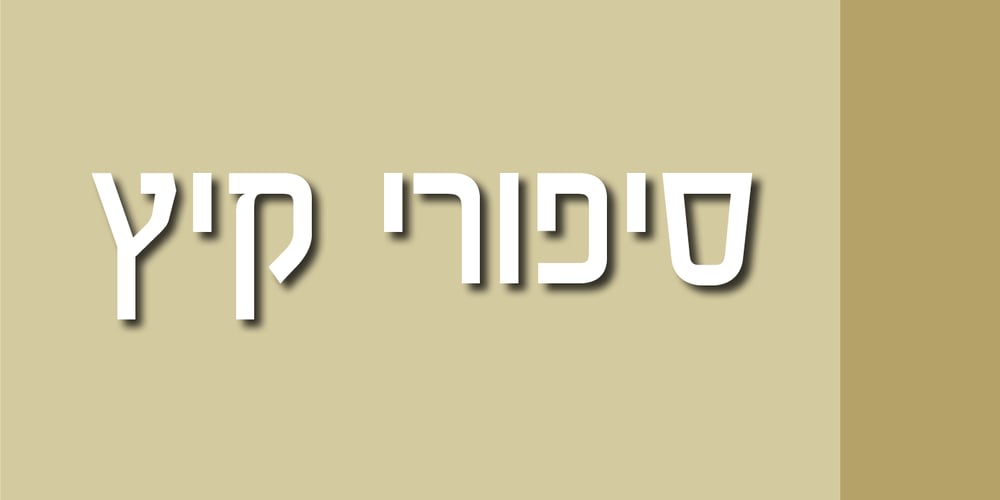
Meriza MF Font Family was designed by Eliyahu Fried and published by Masterfont. Meriza MF contains 1 styles and family package options. Geometric forms make this elegant font family a great companion for titles, invitations and signs, indoor and outdoor.